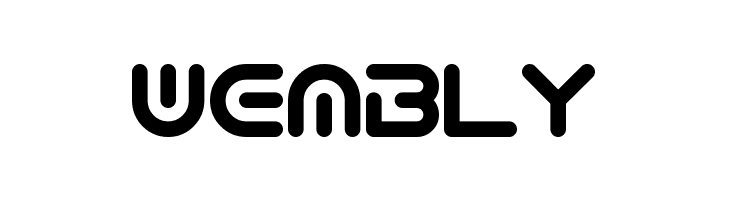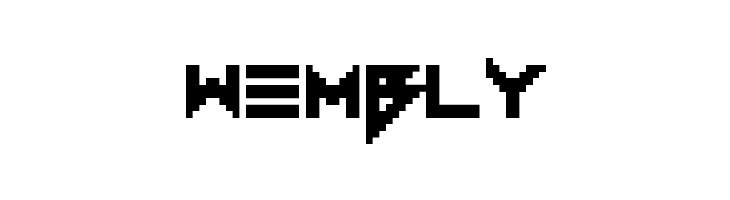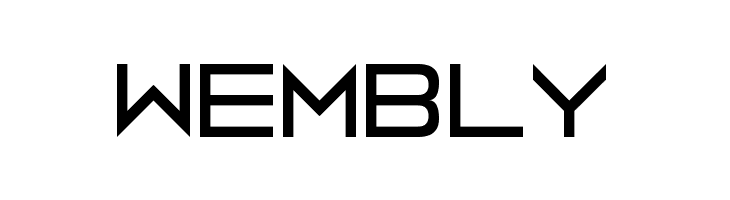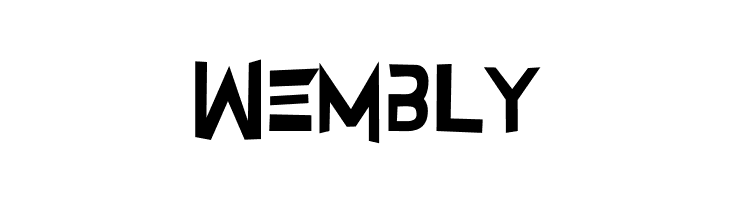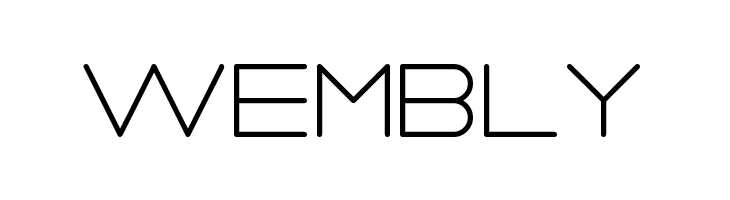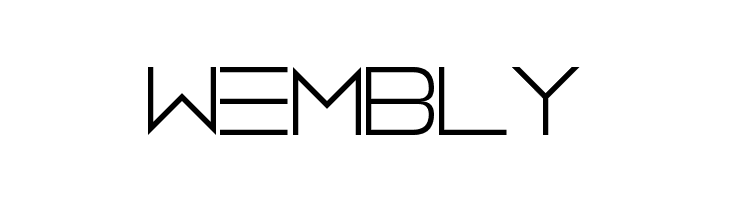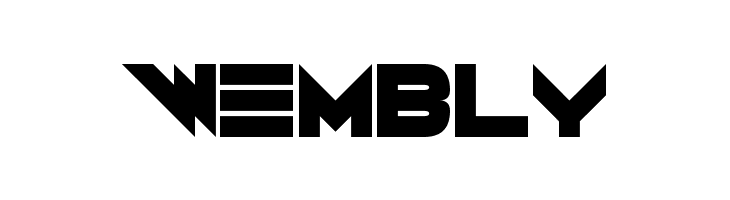
Vermin Vibes Regular Font
A bold, angular font with a futuristic and edgy design.
Vermin Vibes 2 Nightclub Font
A sleek, modern font with geometric and minimalist design.
Vermin Vibes Redux Regular Font
A bold, angular font with a futuristic and edgy design.
Vermin Vibes V Font
A bold, angular font with a futuristic and edgy design.
Vermin Vibes Slant Regular Font
A bold, angular, and slanted font with a futuristic design.
Vermin Vibes 2 Font
A futuristic, geometric font with sharp angles and clean lines.
Vermin Vibes 2 EDM XTC Font
A futuristic, bold font with rounded edges and geometric structure.
Vermin Vibes 2 Soft Font
A modern, geometric font with rounded edges and consistent stroke widths.
Vermin Vibes 2 Black Font
A bold, geometric font with a futuristic and edgy style.
Vermin Vibes eX Regular Font
A bold, angular font with a futuristic, geometric design.
Vermin Vibes Redux(RUS BY LYAJK Font
A bold, angular font with a futuristic and edgy design.
Vermin Verile Font
A bold, angular, and futuristic font with a strong geometric design.
Vermin Vibes 2 White Font
A modern, geometric font with clean lines and a futuristic aesthetic.
Vermin Vision Font
A futuristic, geometric font with bold, rounded edges and consistent stroke width.
Vermin Vibes Mert Regular Font
A bold, angular font with a futuristic and dynamic design.
Vermin Vibes Corrupto Font
A bold, angular font with a futuristic and edgy design.
Vermin Vibes 4 Font
A bold, geometric font with a futuristic and dynamic design.
Vermin Vibes Roundhouse Regular Font
A bold, geometric font with a futuristic and edgy design.
Vermin Vibes 4 Helium Font
A modern, geometric font with a futuristic and clean design.